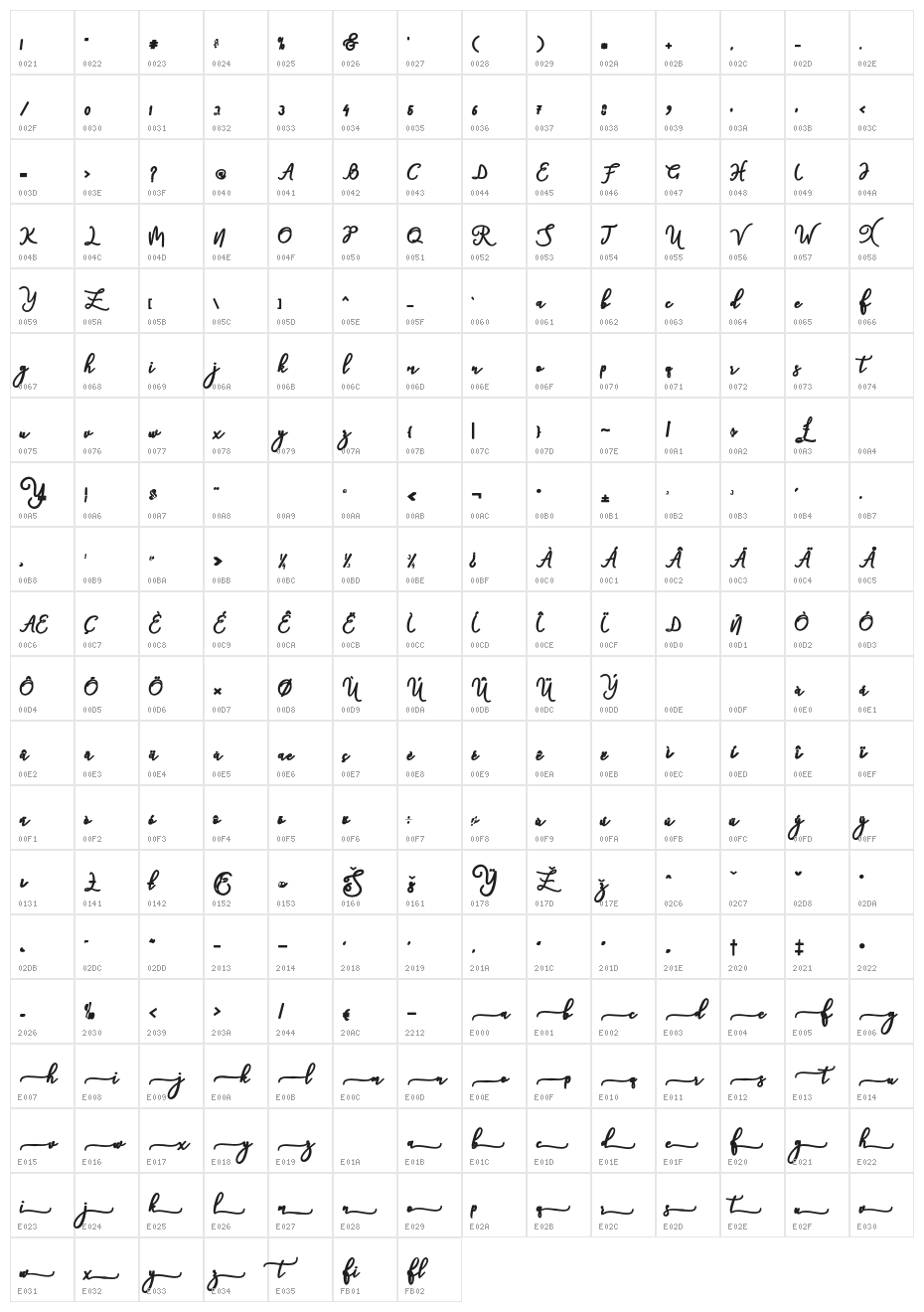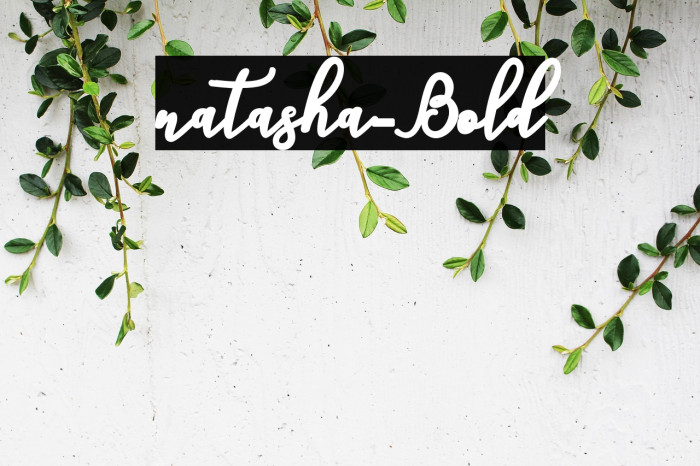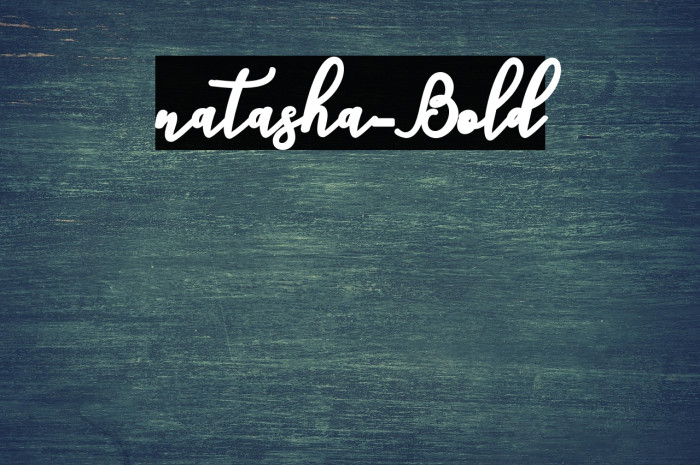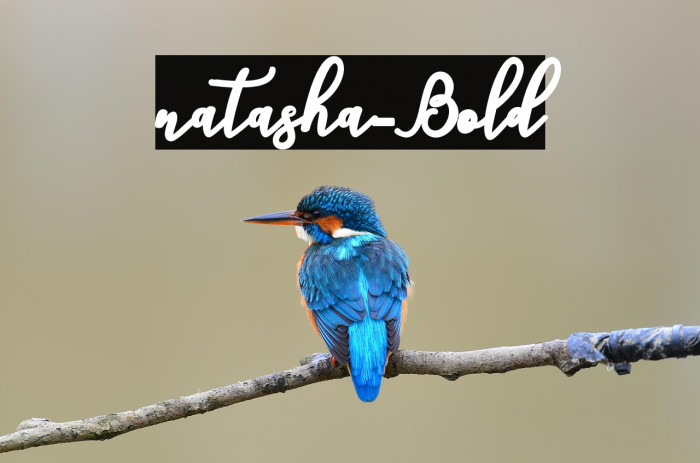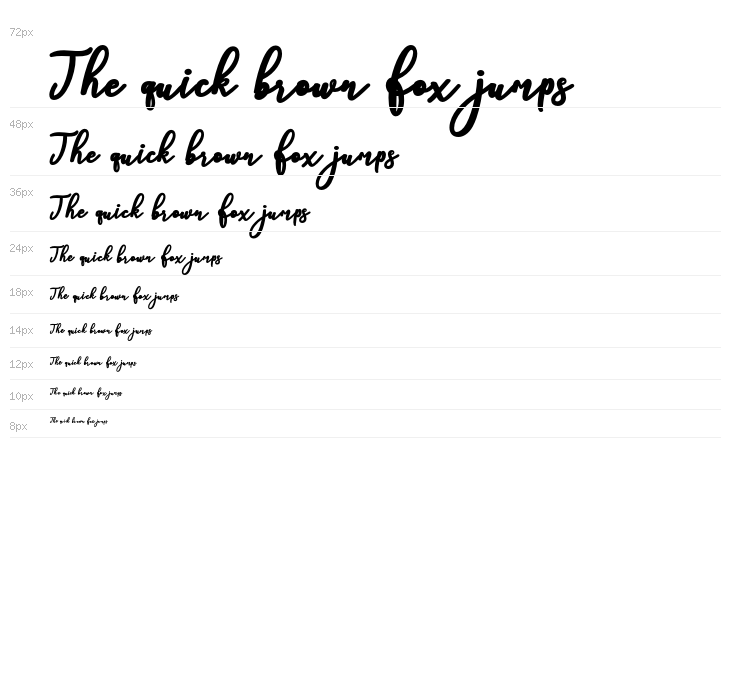
natasha-Bold Font
natasha-Bold Description
This font features a bold, cursive style with a flowing, handwritten appearance. The uppercase letters have a distinct elegance, with smooth curves and loops that give a sense of movement and grace. The lowercase letters maintain a consistent style, with a slightly more compact form that complements the uppercase characters. Numbers and special characters are designed to match the overall aesthetic, ensuring a cohesive look across all text. The bold weight of the font adds a strong presence, making it suitable for attention-grabbing headlines or impactful logos. The character spacing is relatively tight, enhancing the connected, script-like feel of the font.
| Proposed Projects | Ideal for wedding invitations, elegant branding, personal stationery, and decorative headlines. |